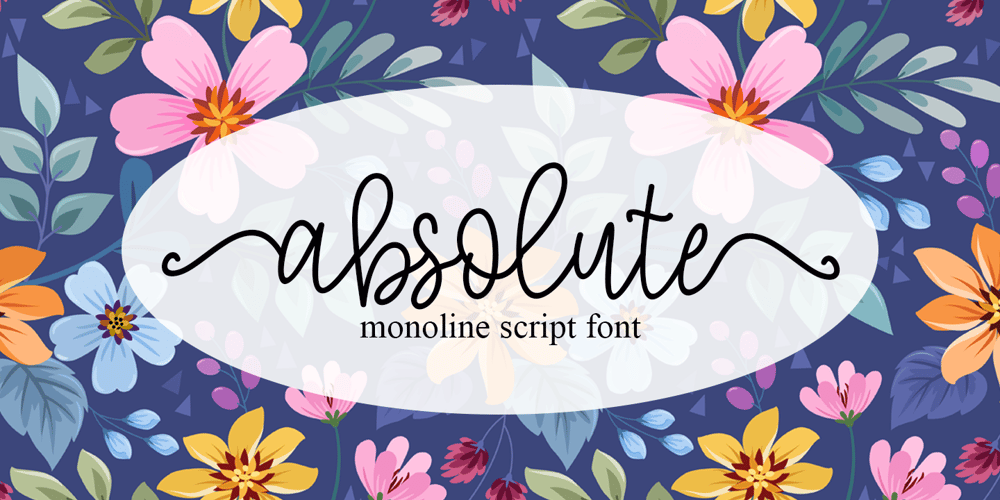
Absolute
Absolute font
Absolute Font Family was designed by Arief Tri Sulistiyono and published by Supersemarletter. Absolute contains 1 styles and family package options. Absolute is a handwritten font which feels incredibly elegant and flowing. It looks stunning on wedding invitations, thank you cards, quotes, greeting cards, logos, business cards and every other design which needs a handwritten touch.This font is PUA encoded which means you can access all of the glyphs and swashes with ease! Provide Ligatures and alternates with special character make the design letters looks incredible.Honestly it works perfectly for headlines, logos, posters, packaging, T-shirt and much more.Font Features : Regular Version Character set A-Z in Uppercase and Lowercase Ligatures in lowercase and special Aternates option Numerals and Punctuation Accented Characters Multiple Languange Supported Recomended to use in Adobe Illustrator or Adobe Photoshop with opentype feature.If you have any questions, just send me a message and I’m glad to help.